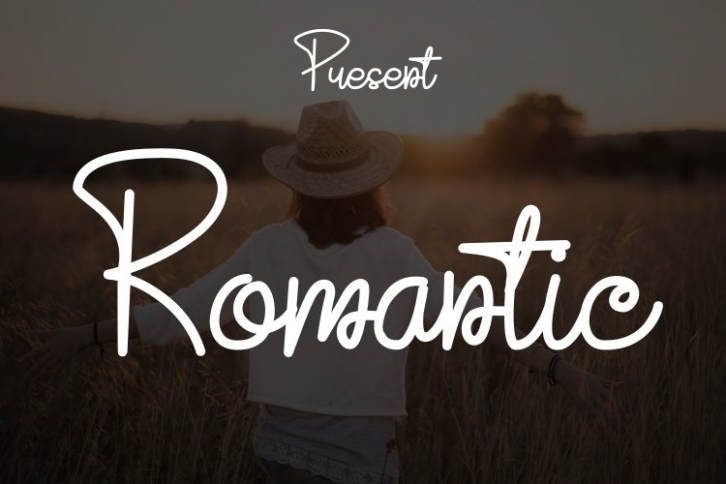
Romantic is a trendy and unique font with an authentic style. It was designed by kreatif eric and it's a great choice for creative people who need such a font. It was released on September 18, 2022 and the file size is 9.67 MB. Romantic will add an organic vibe to any design idea!